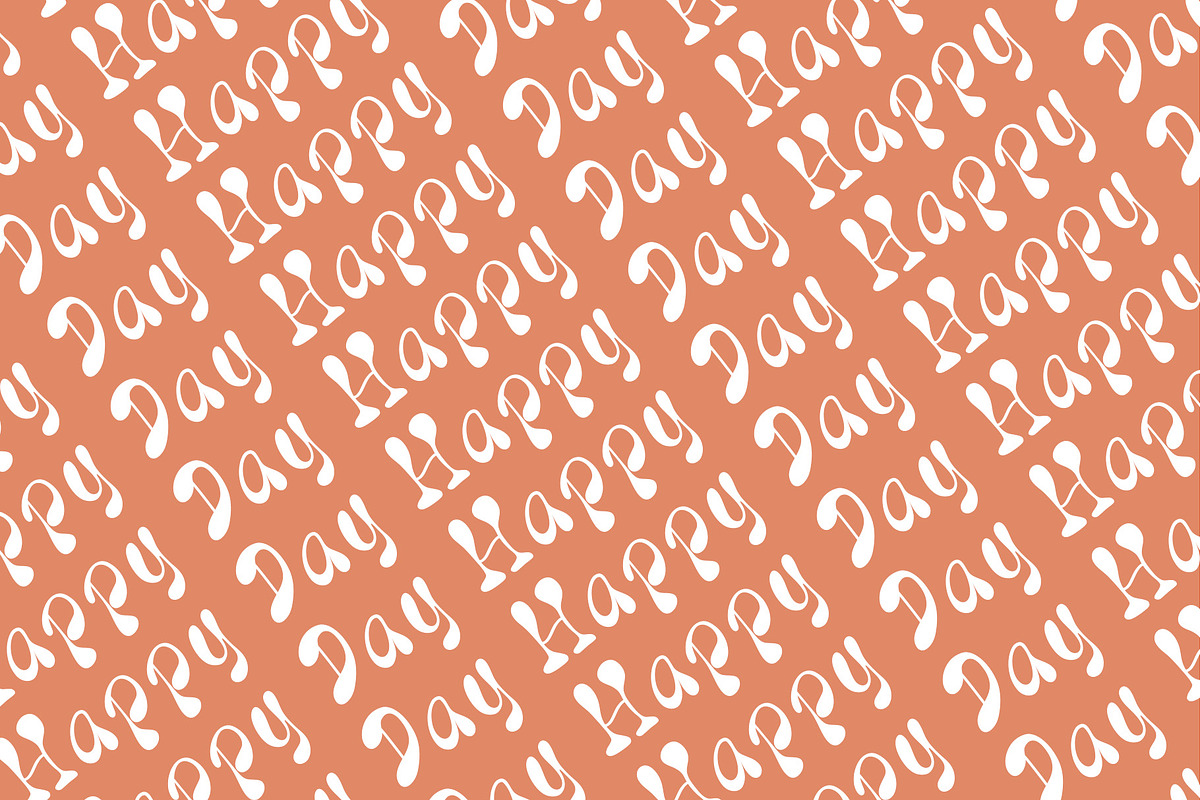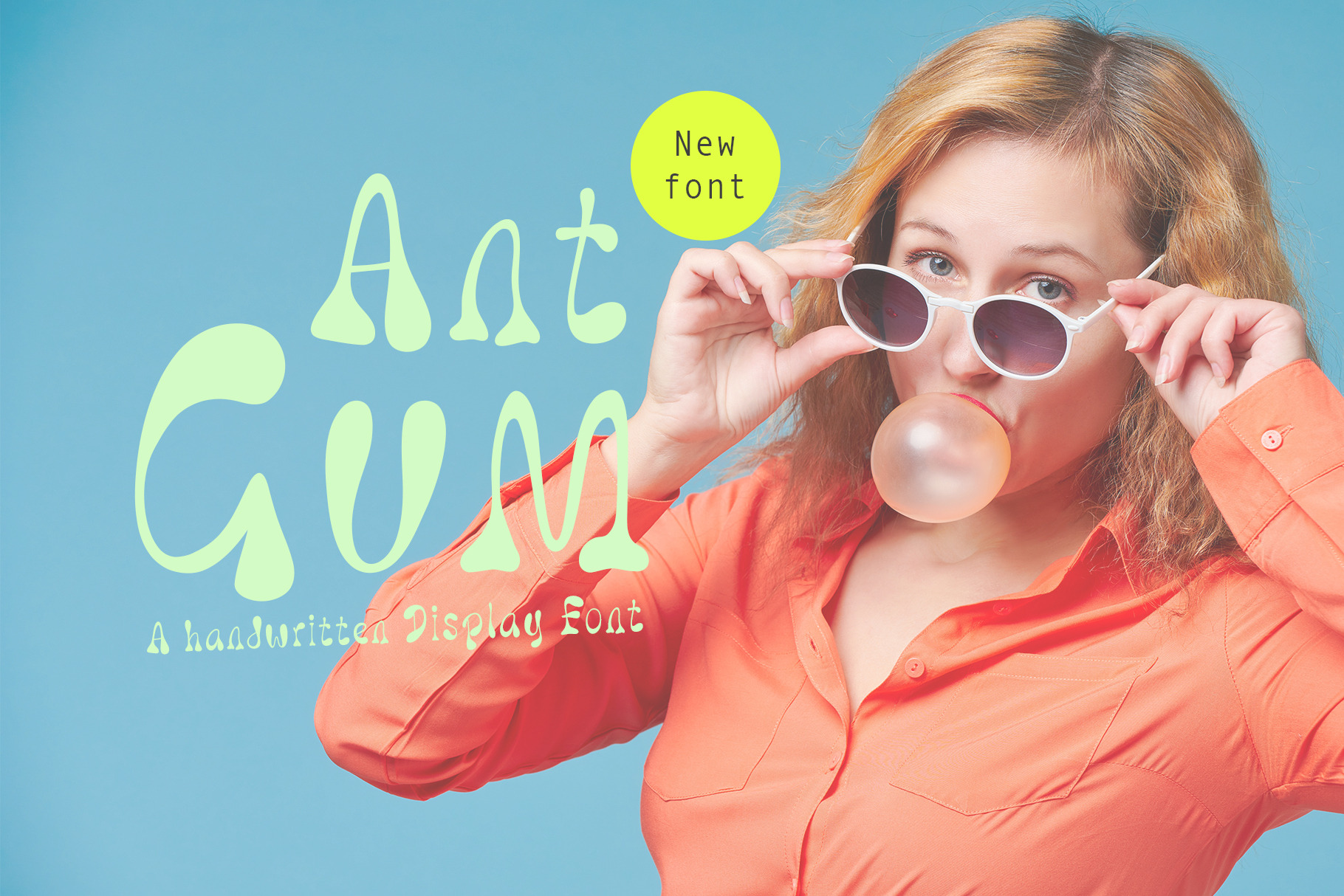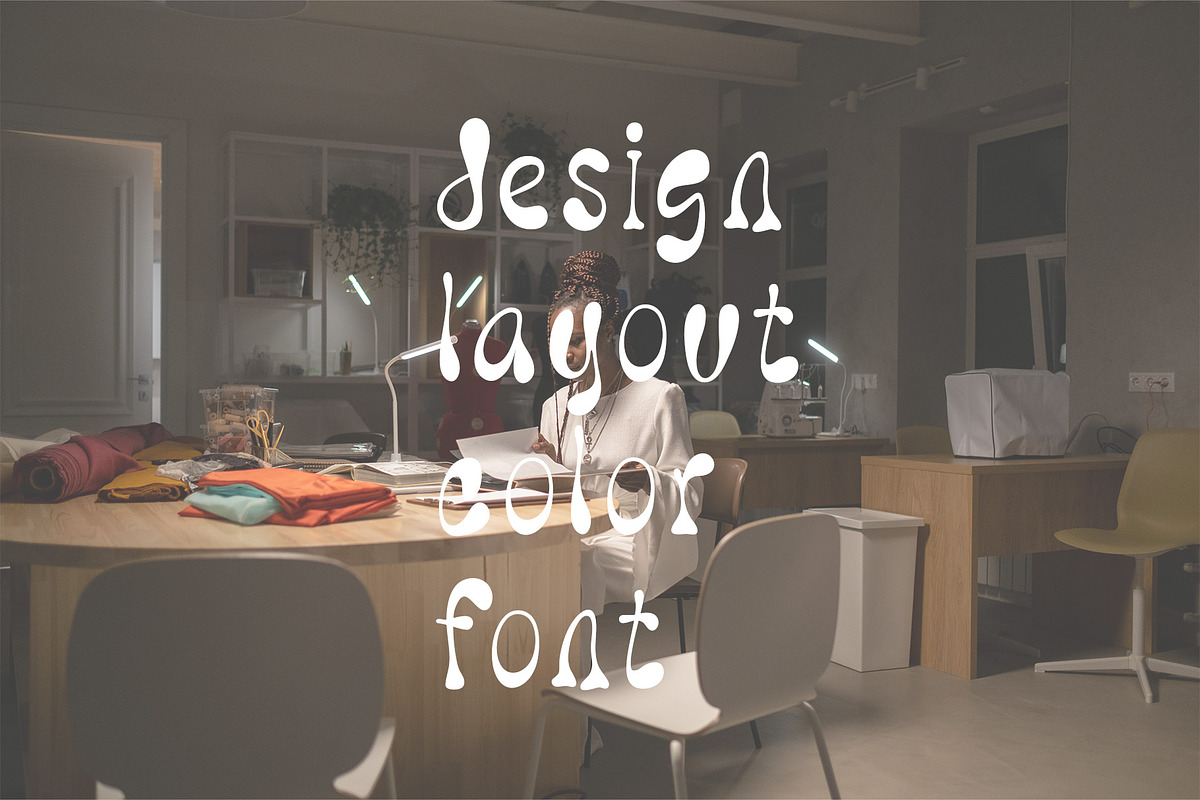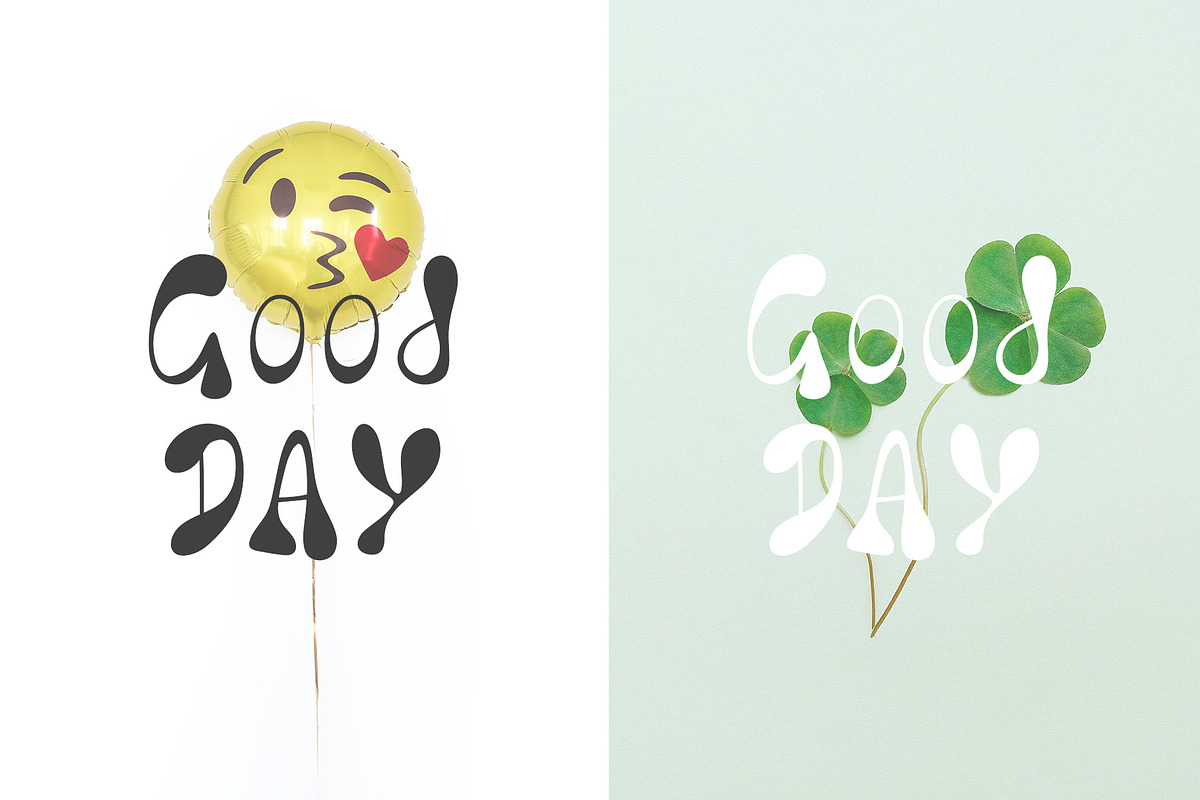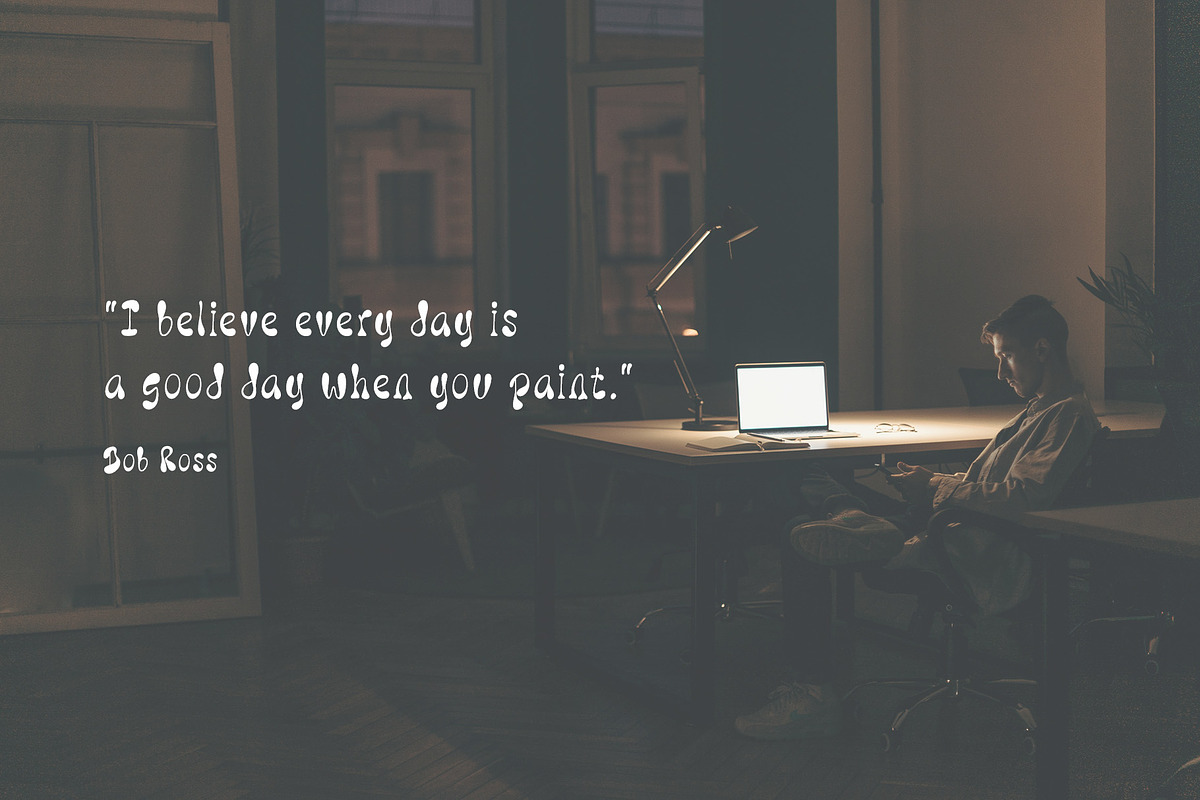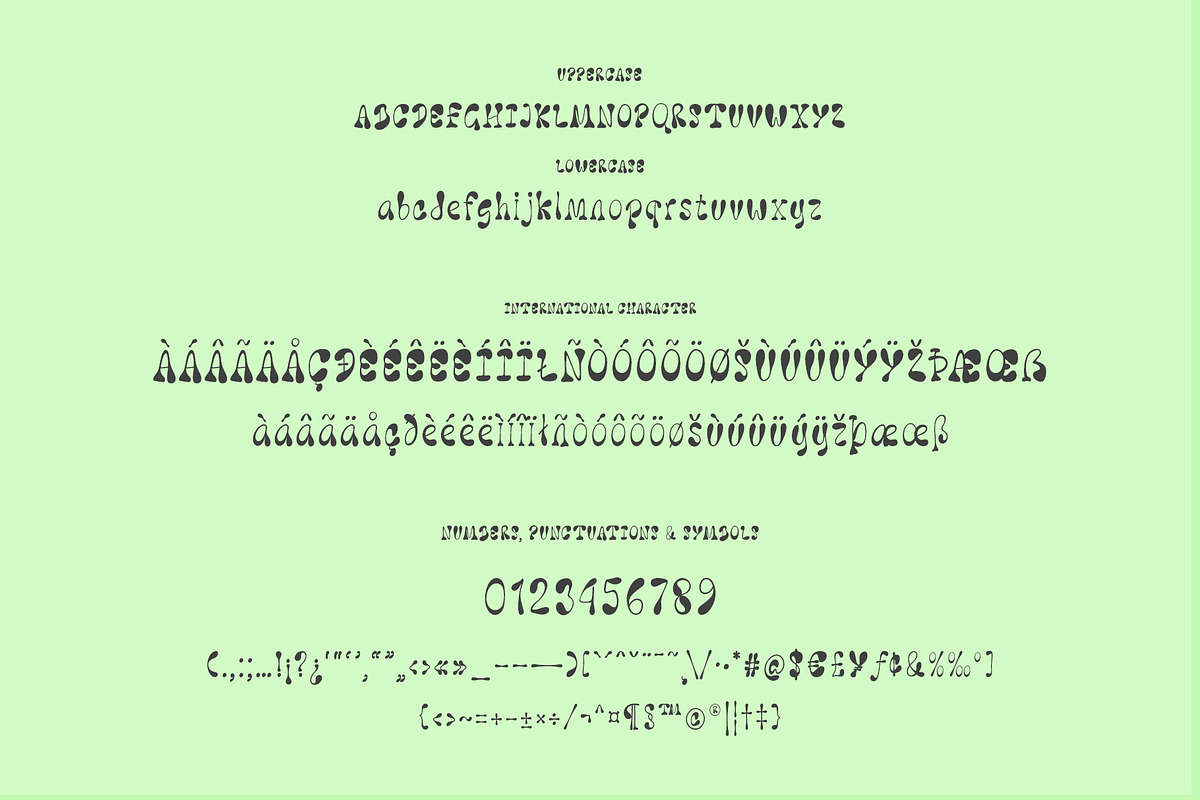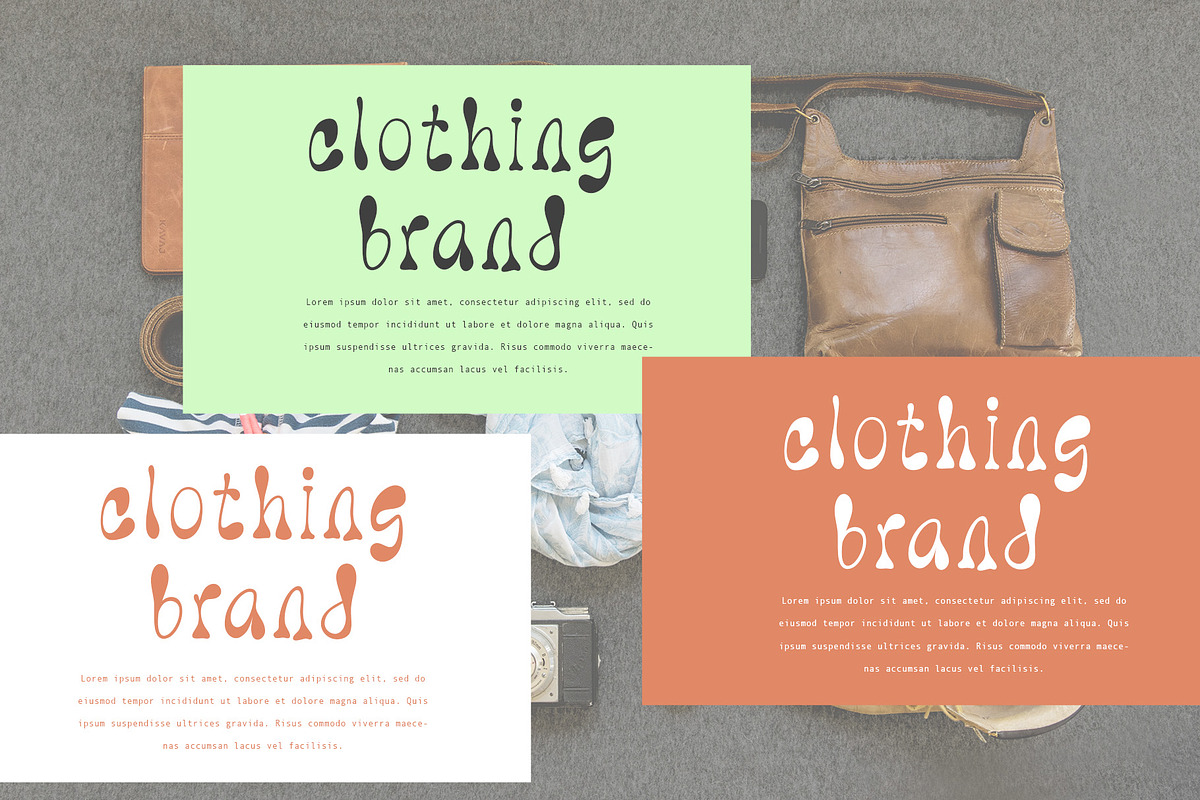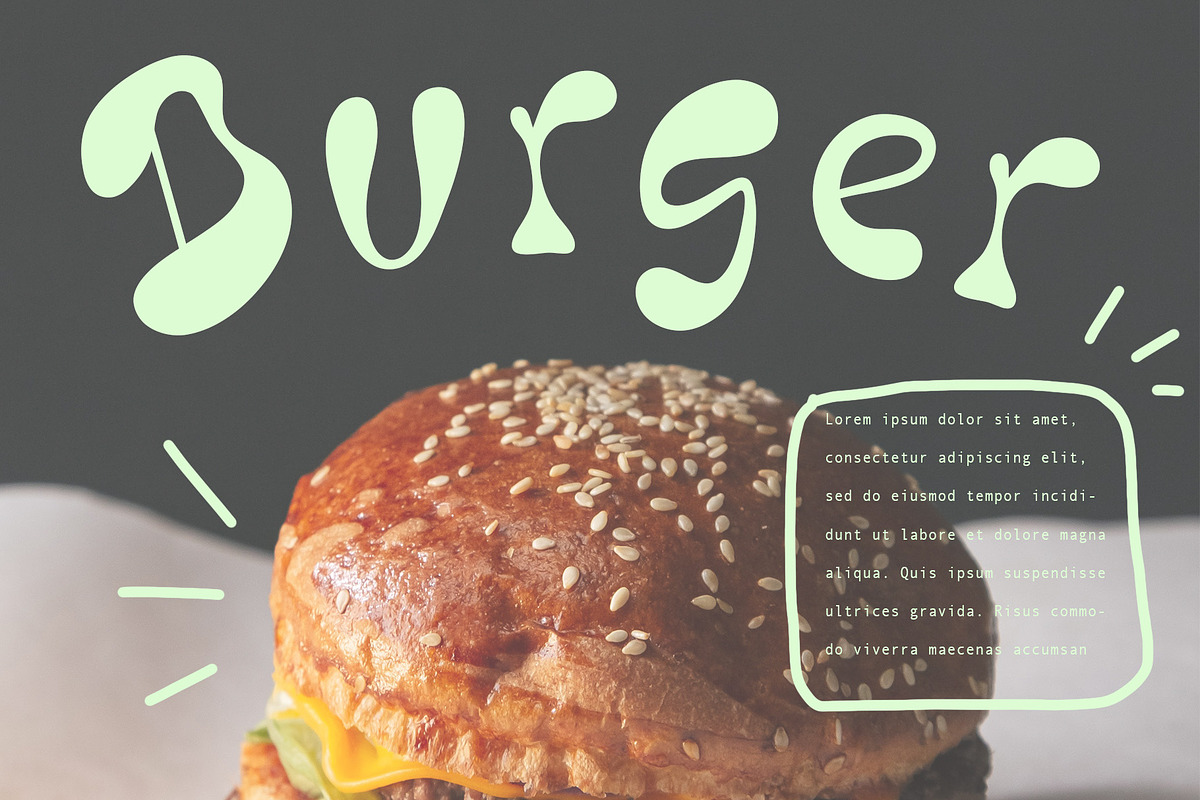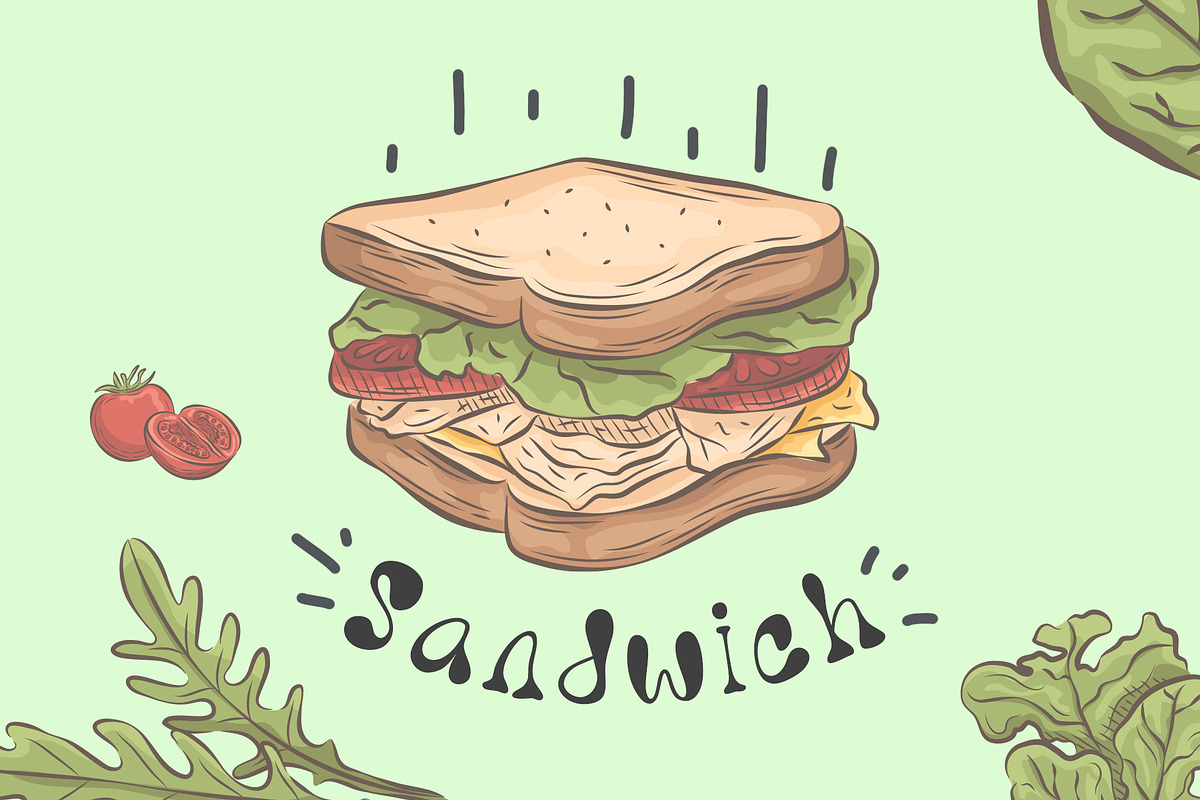
Ant Gum a Handwritten Display Font
Ant Gum is a font with adorable handwriting characters and a retro theme. The font is designed with soft curves and a handwriting style that gives a sweet and charming impression.
The history behind the creation of the Ant Gum font stems from our love for retro handwriting styles that evoke memories of the past. We are inspired by the warmth and nostalgia associated with retro aesthetics, as well as its timeless uniqueness and charm.
With Ant Gum we aim to create a font that brings a sense of nostalgia and beautiful memories to its users. The font combines retro touches with modern design, creating a unique and captivating combination.
Every letter and character in the Ant Gum font is carefully chosen to provide an endearing and authentic impression. We strive to recreate the warmth and innocence of the past, making this font suitable for various design projects that seek to create a sweet and distinctive impression.
We hope that the Ant Gum font will bring joy and nostalgic feelings to every design project it is used in. With its adorable handwriting style and heartwarming retro theme, this font becomes an appealing choice for designers who want to convey their message with a different and delightful style.
Through the Ant Gum font, we aim to express our love and appreciation for the timeless beauty of retro handwriting. May this font bring happiness and sweet memories to everyone who uses it.